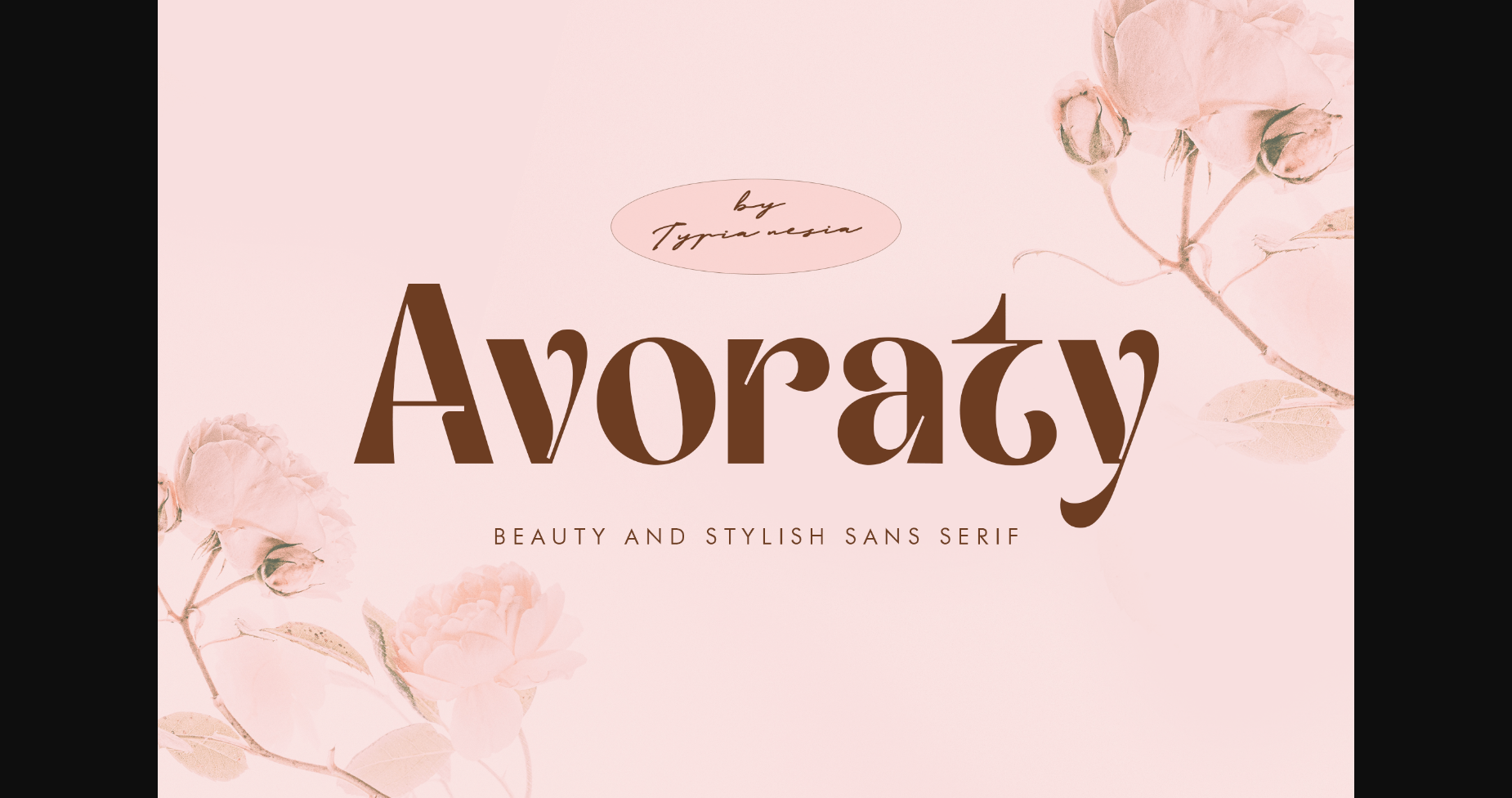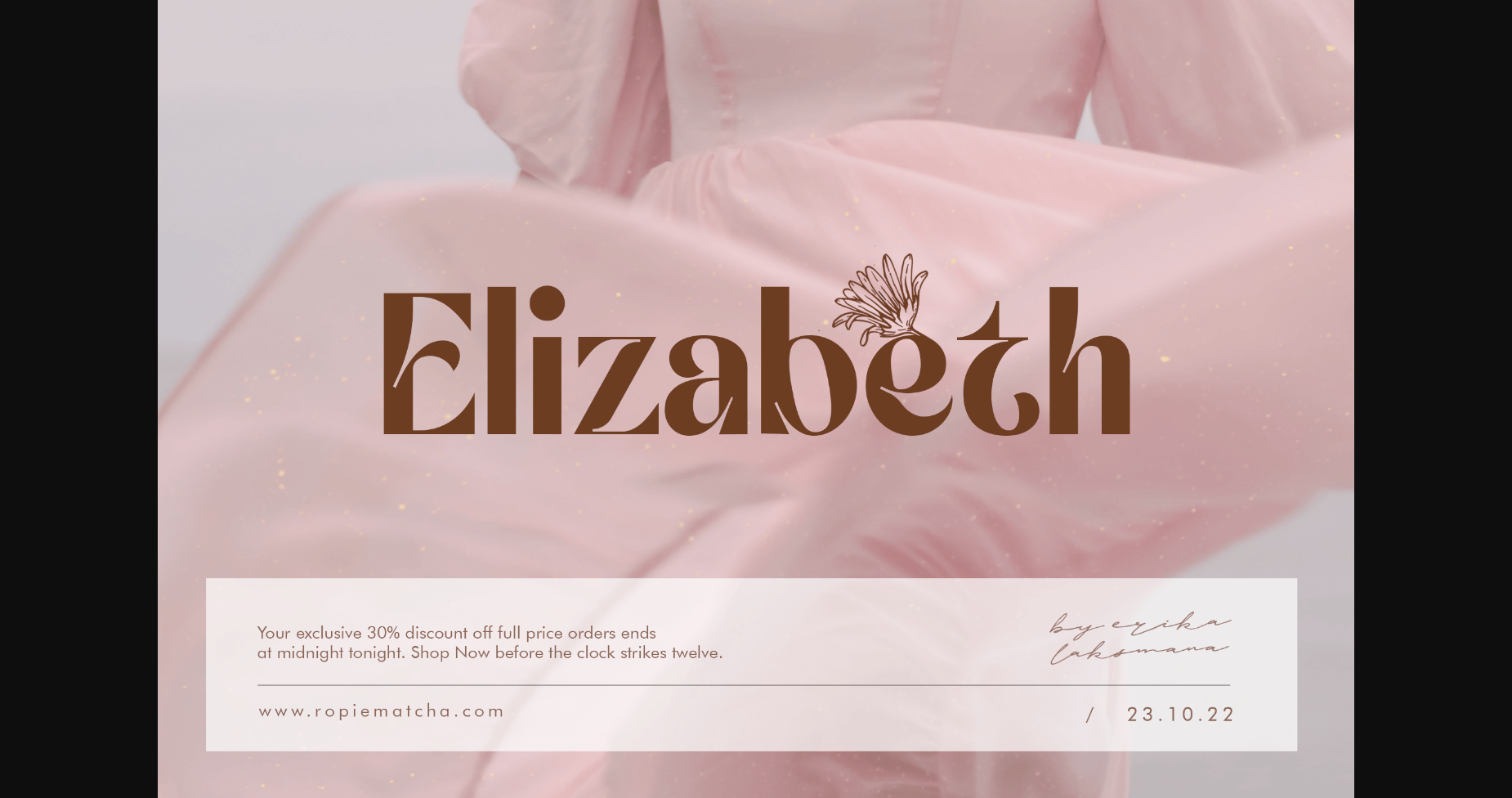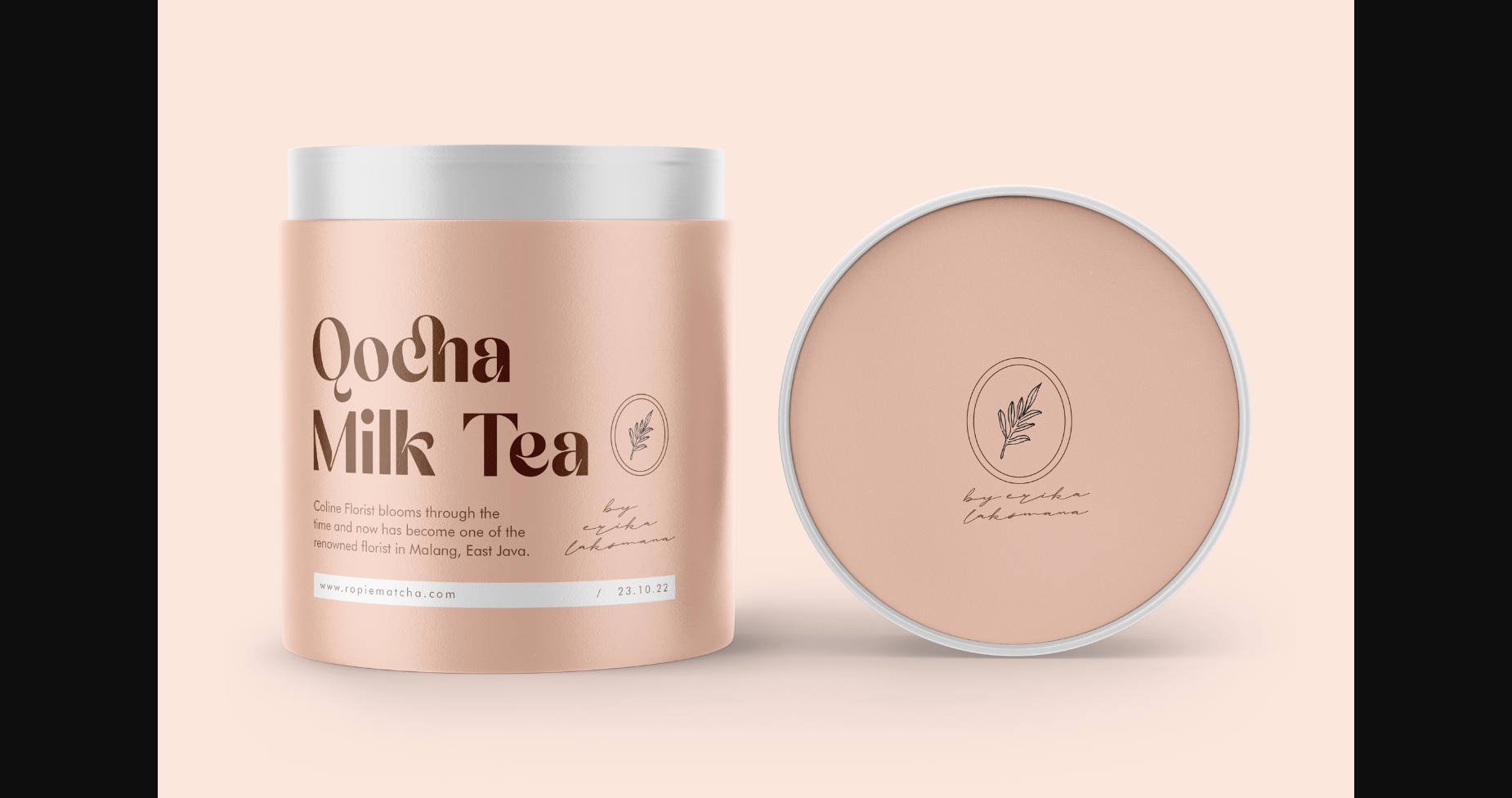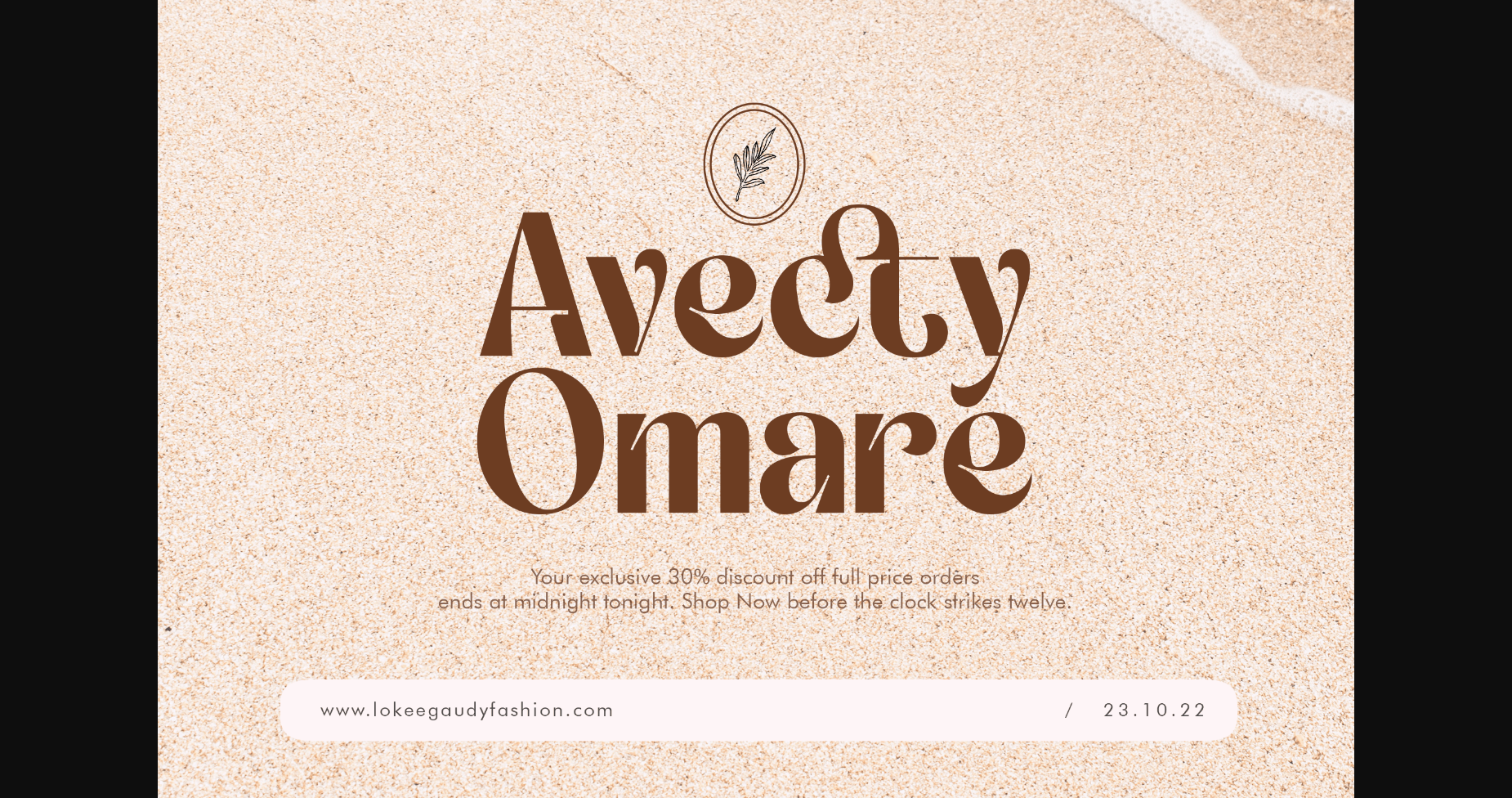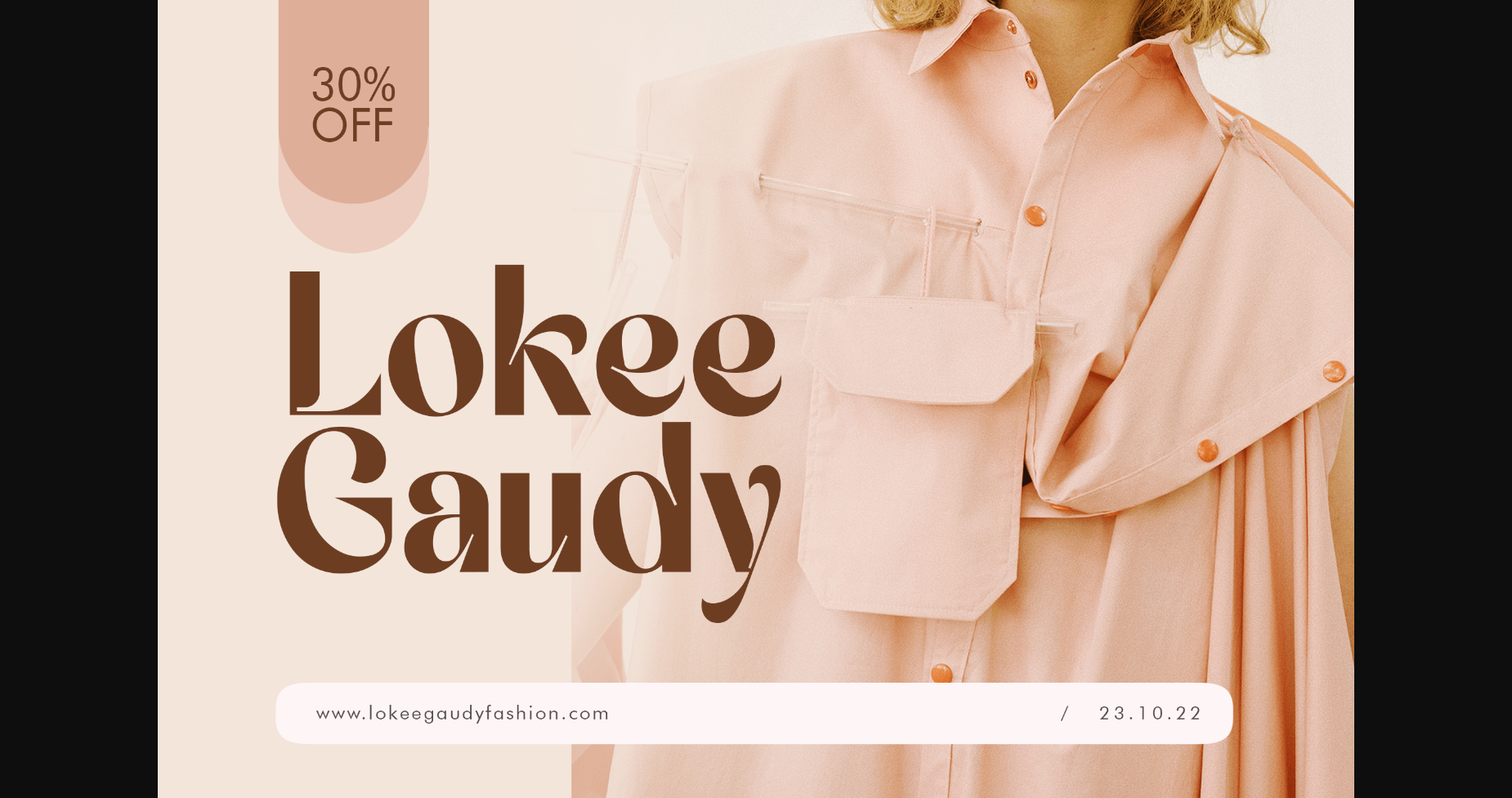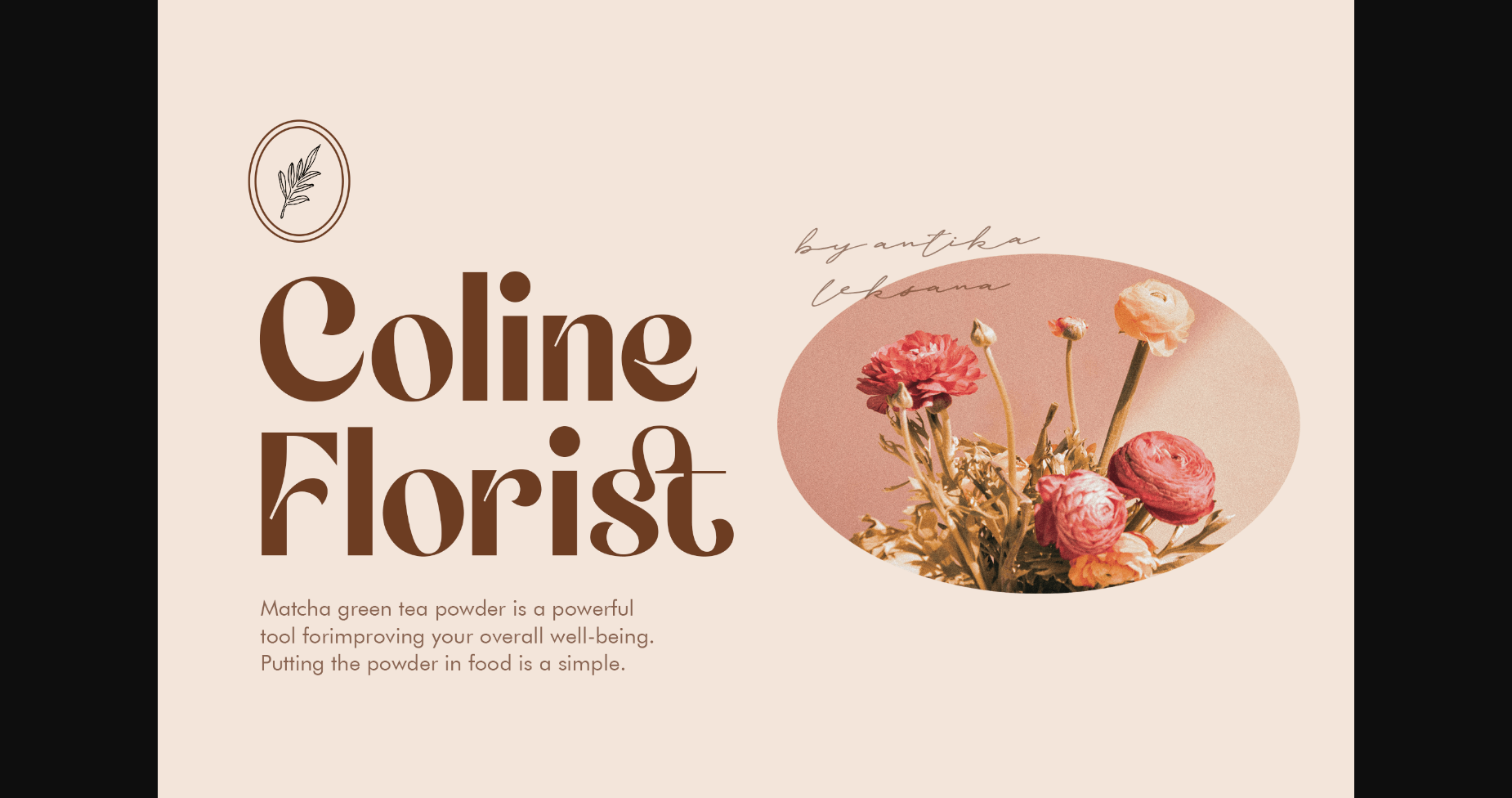
Avoraty – Modern, beautiful, elegant, aesthetic Sans Serif – Expressive Feminine Logo Branding Font
Avoraty comes with some alternates and ligatures, so you can combine them to make a perfect typography design. It is perfect for your upcoming projects such as luxury logo and branding, classy editorial design, woman magazine, cosmetic brand, fashion promotional, art gallery branding, museum, boutique branding, stationery design, blog design, modern advertising design, card invitation, art quote, home decor, book/cover title, special events, and more.